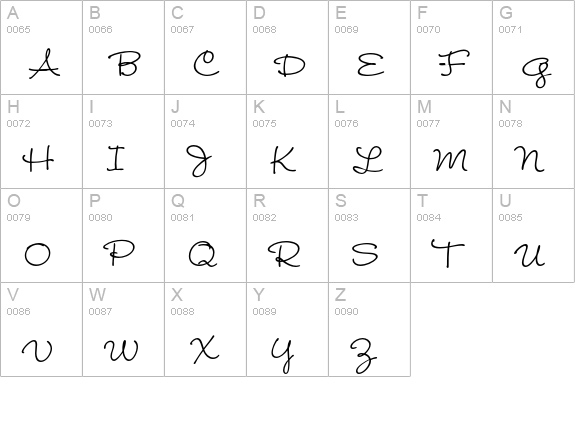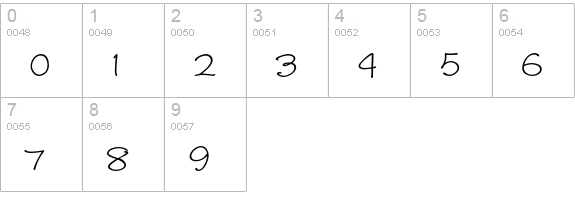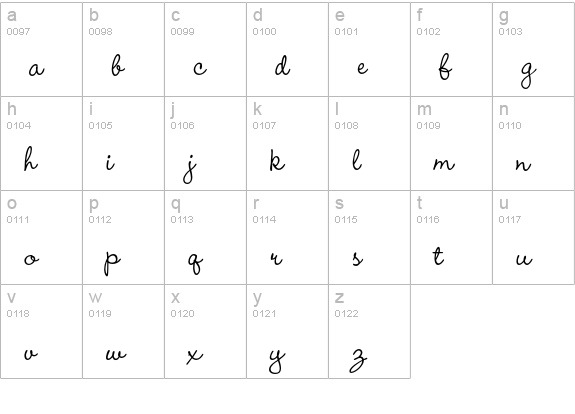
Wendy LP Std Medium is a balanced, medium-weight variant in the Wendy typeface family \xE2\x80\x94 well suited to sub-headlines, navigation, and balanced editorial work.
Introducing Wendy LP Std Medium, a stunning font that effortlessly combines elegance, versatility, and modernity. This font exudes a sense of sophistication with its clean lines and perfectly balanced curves, making it suitable for a wide range of creative projects. Wendy LP Std Medium is not only visually appealing but also highly functional, making it ideal for both print and digital designs. Its medium weight strikes the perfect balance between readability and impact, making it an excellent choice for headlines, titles, and body text alike. One of the most remarkable aspects of Wendy LP Std Medium is that it is freely available to download at FontsMarket.com. This means that you can enhance your designs without any additional cost. Whether you're a professional designer or a passionate hobbyist, this font provides you with the opportunity to elevate your creations without breaking the bank. With its extensive character set, Wendy LP Std Medium offers support for multiple languages, ensuring that your message can be effectively communicated to a global audience. Additionally, its OpenType features provide access to alternate glyphs, ligatures, and stylistic sets, allowing you to truly customize your designs and add a unique touch. Overall, Wendy LP Std Medium is a versatile and visually stunning font that effortlessly combines elegance and modernity. With its freely available download at FontsMarket.com, there's no reason not to add this font to your collection and enhance your designs with its timeless appeal. So why wait? Download Wendy LP Std Medium now and unlock a world of creative possibilities.